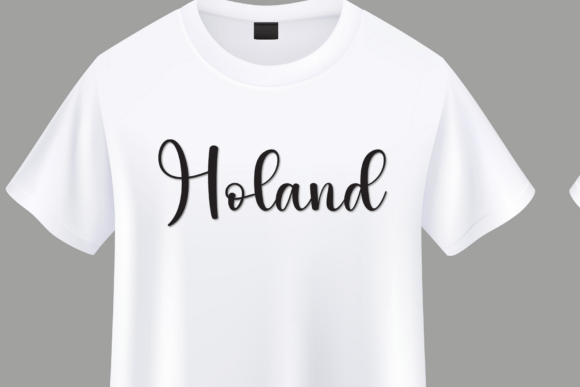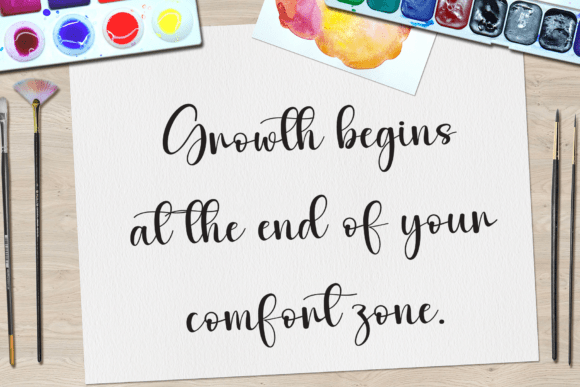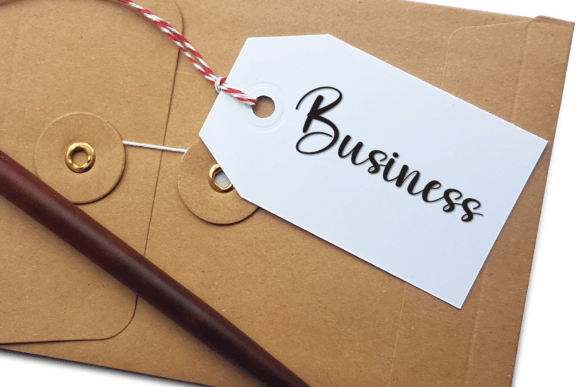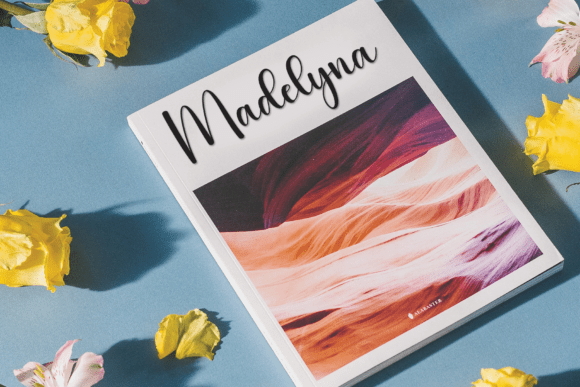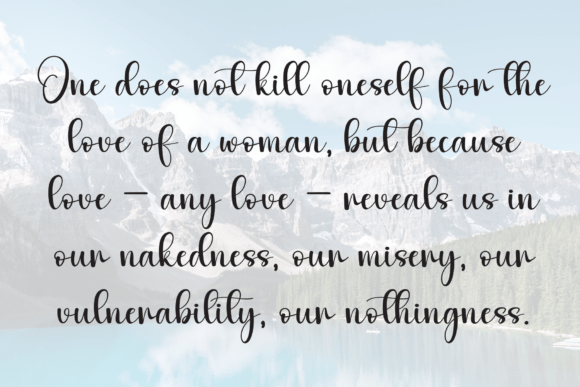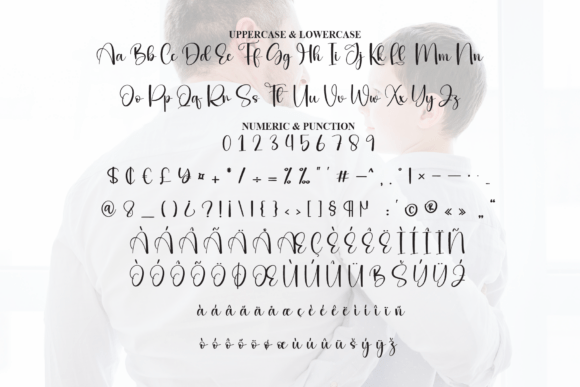
First Impressions: A Love Affair with Fathers Font
Fathers Font radiates fresh elegance and delicate charm, making it perfect for invitations, branding, and seasonal designs. Its flowing strokes and graceful curves evoke a sense of renewal, adding a soft, personal touch and uplifting feel to any project. Here are a few things I love about Fathers Font:
- ✨ Elegant and refined, yet approachable and friendly
- 💫 Beautifully crafted with attention to detail
- 🌈 Versatile and adaptable to various design styles
The Not-So-Perfect Font: A Few Quirks
No font is perfect, and Fathers Font is no exception. Here are a few quirks to keep in mind:
- 🤔 Limited character set, which may not be suitable for projects requiring extensive language support
- ⚠️ Some users may find the font too delicate or dainty for certain design applications
The Story Behind Fathers Font
Fathers Font was designed with the intention of creating a beautiful, elegant script font that would evoke a sense of renewal and sophistication. The designer aimed to craft a font that would be perfect for special occasions, such as weddings and holidays, while also being versatile enough for everyday design applications.
| Font Name | Fathers Font |
| What is Fathers Font best suited for? | Fathers Font is perfect for invitations, branding, and seasonal designs that require a touch of elegance and sophistication. |
| Is Fathers Font suitable for body text? | While Fathers Font is highly legible, it’s best suited for headlines, titles, and short paragraphs. For longer body text, a serif font may be more suitable. |